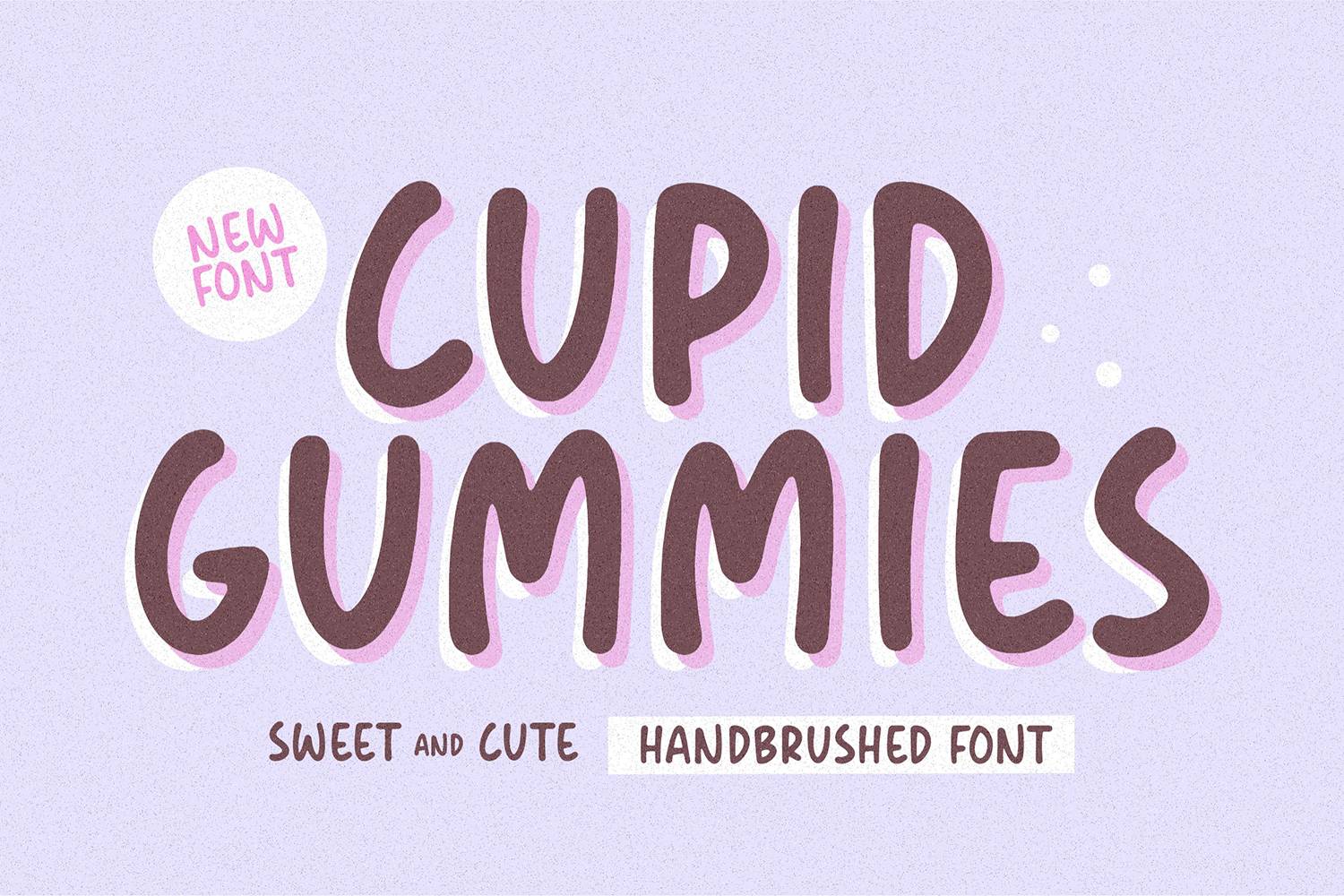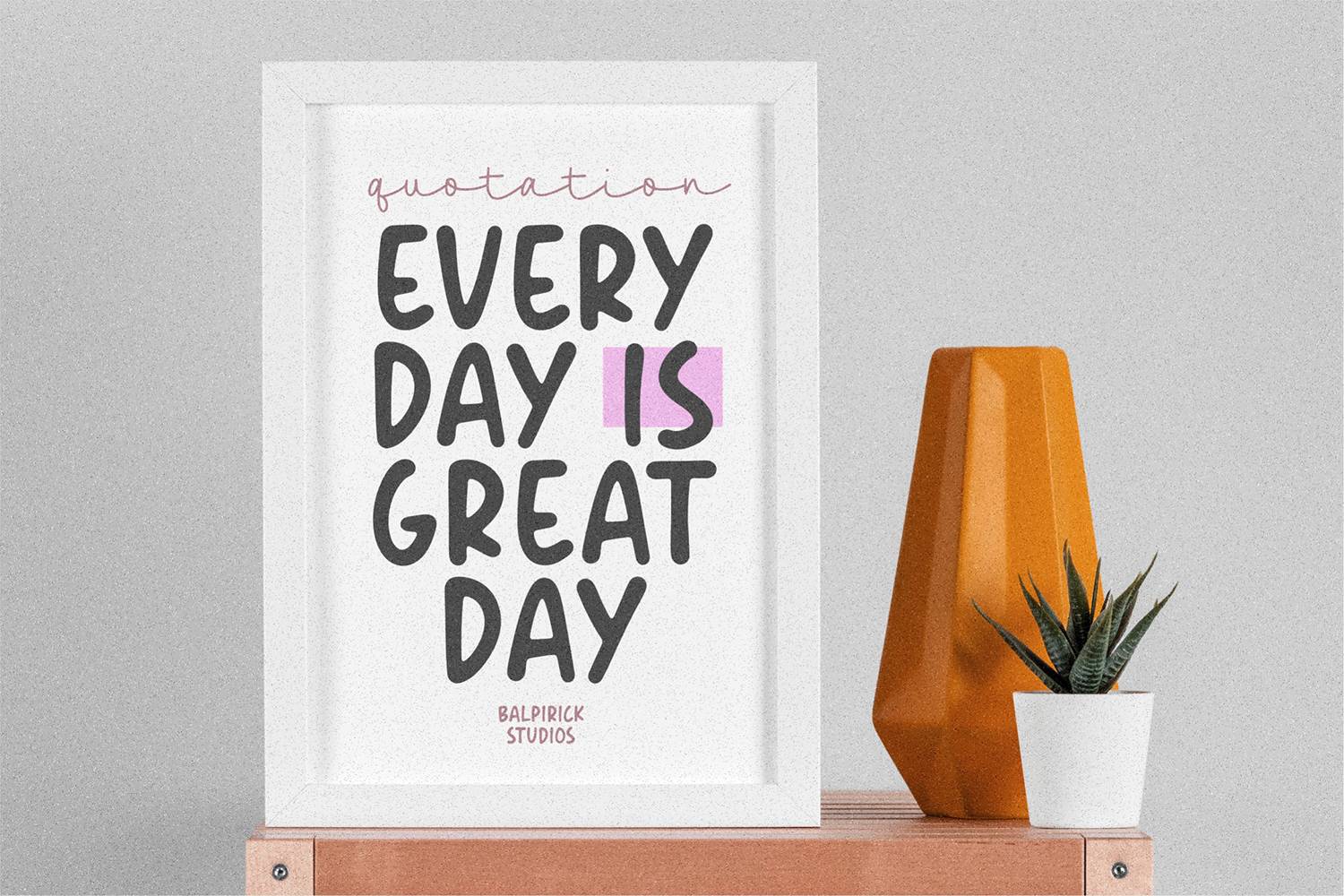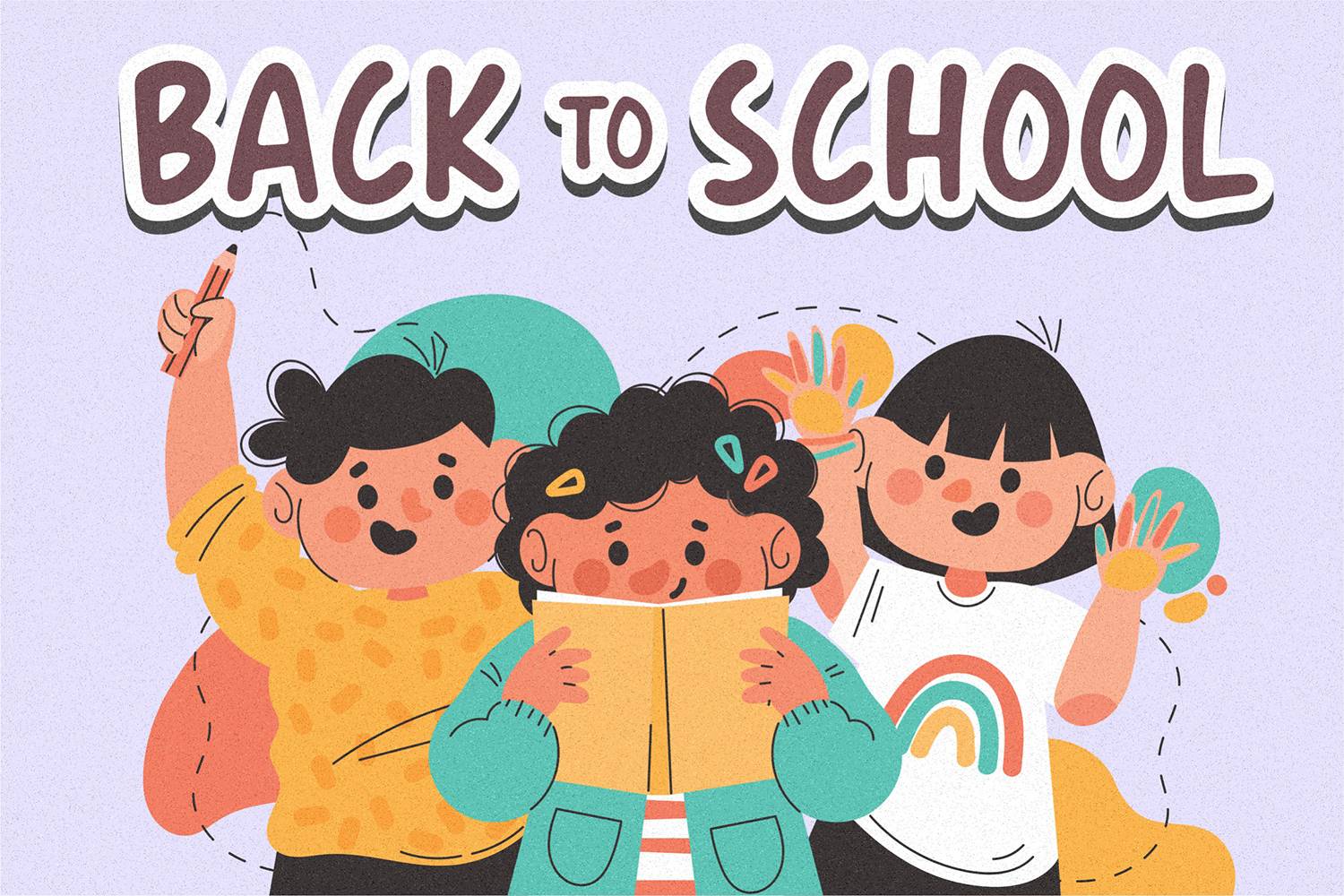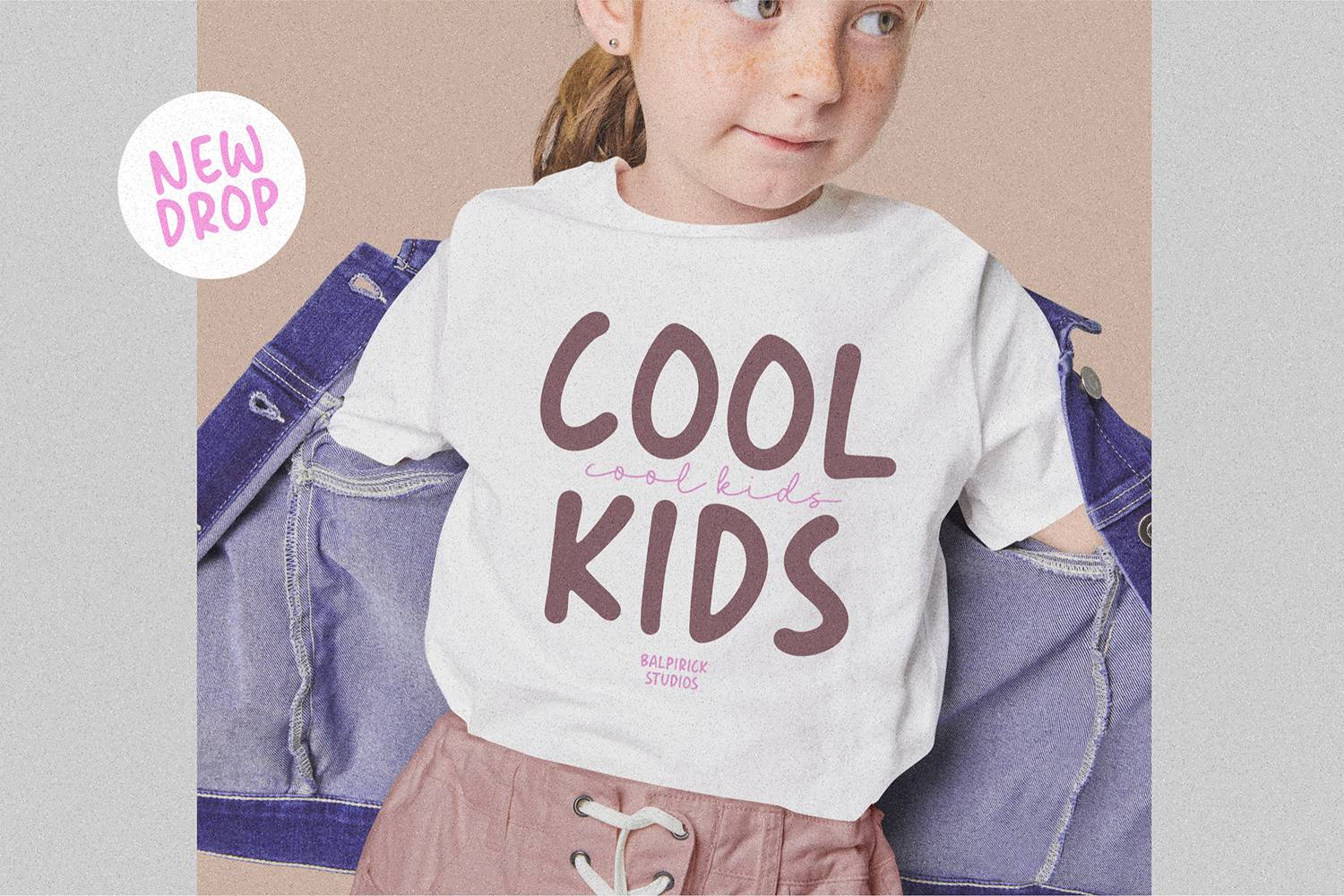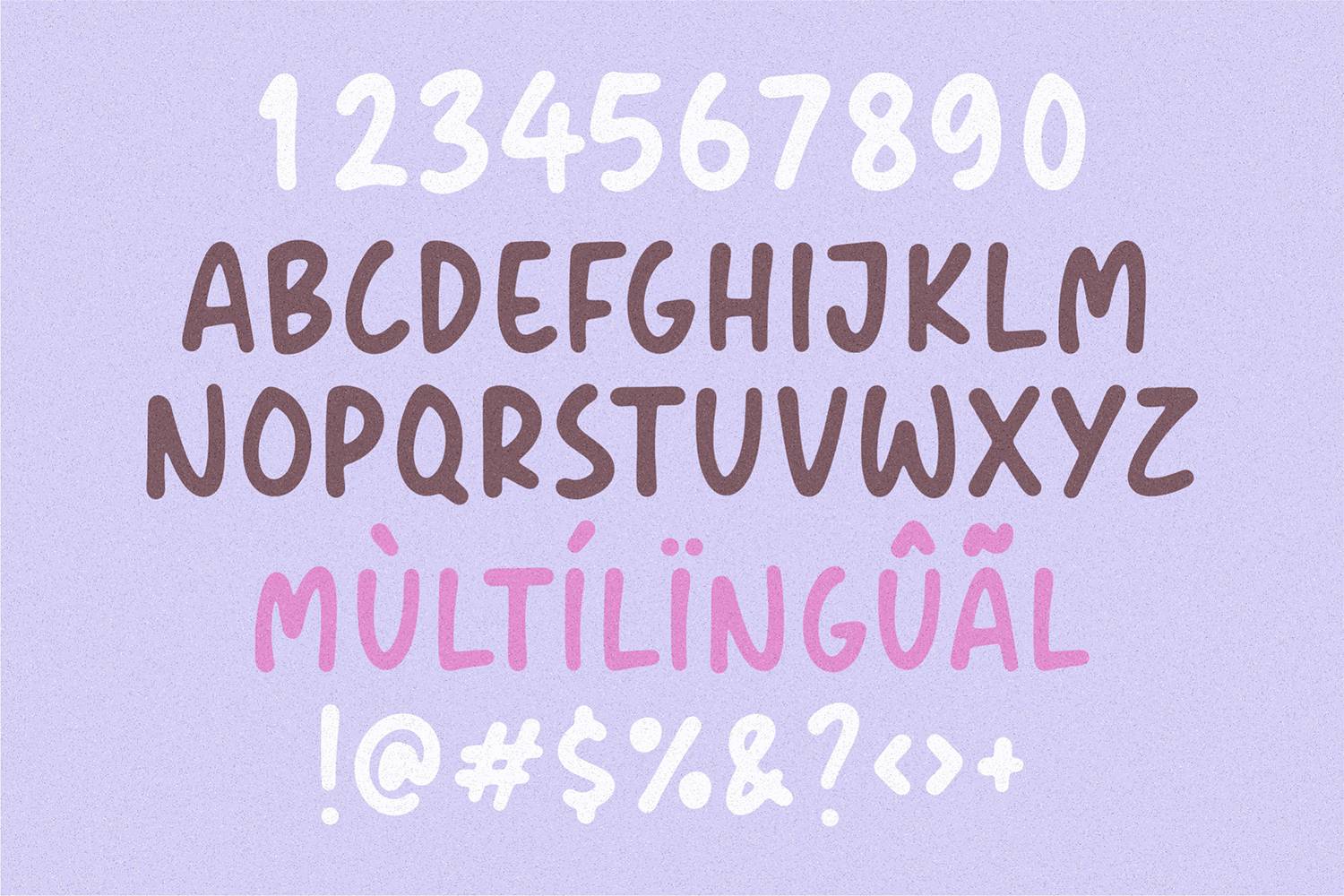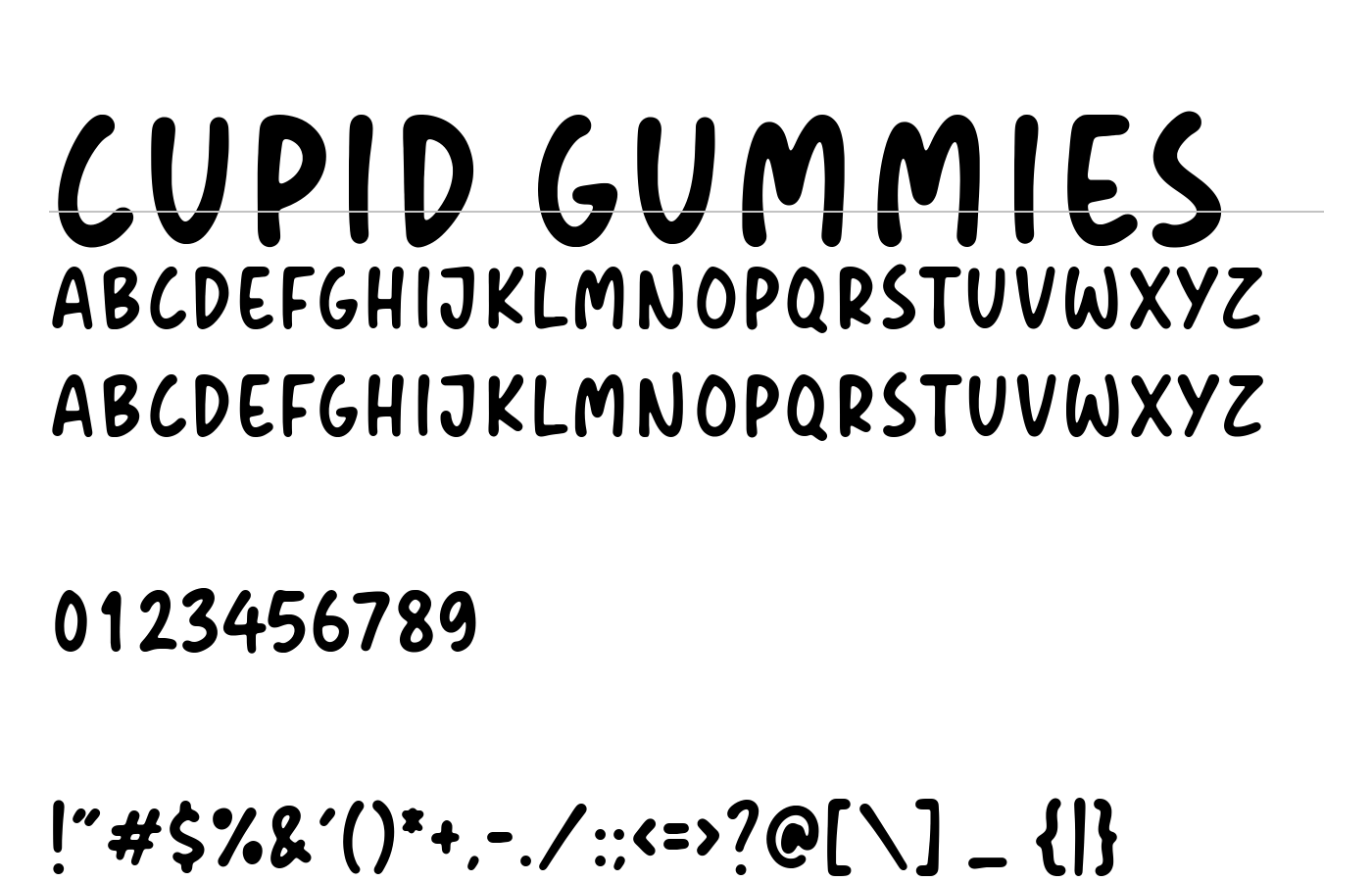
Cupid Gummies is a playful, hand-drawn sans serif font with a friendly and casual personality. Its rounded, slightly irregular letterforms create an inviting and approachable feel, making it ideal for children’s products, fun branding, and informal designs where warmth and charm are key. This font works especially well in headlines, packaging, and any creative project that benefits from a lively, youthful touch.
Cupid Gummies Font
About Cupid Gummies Font